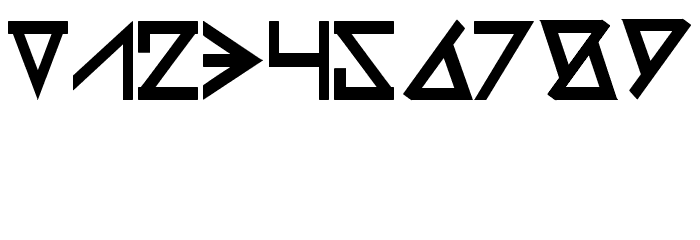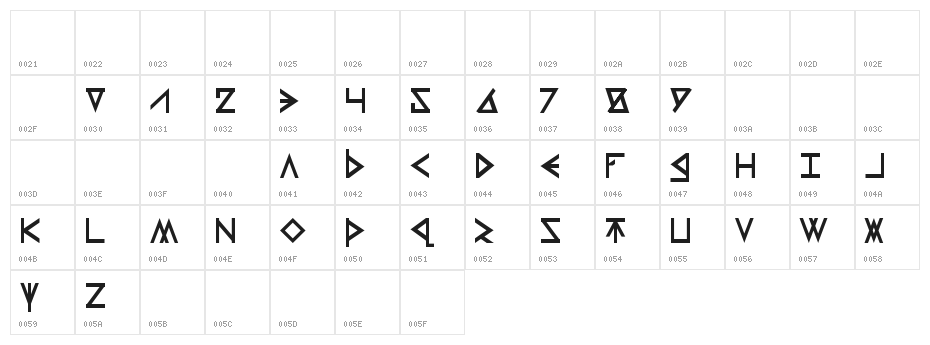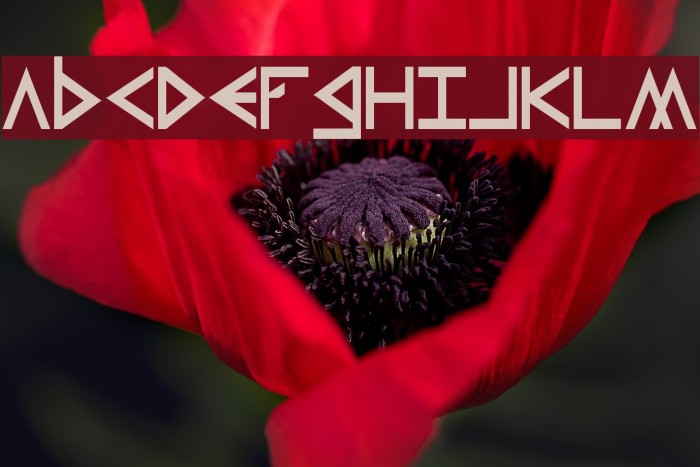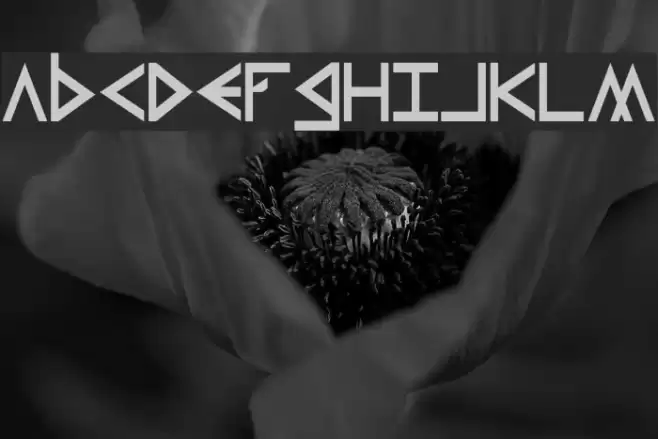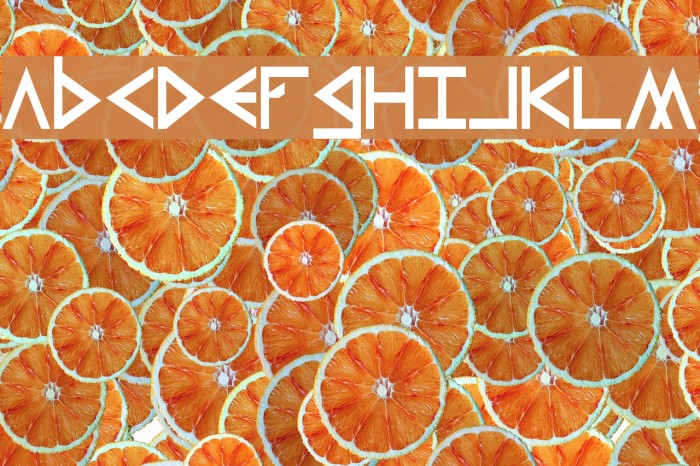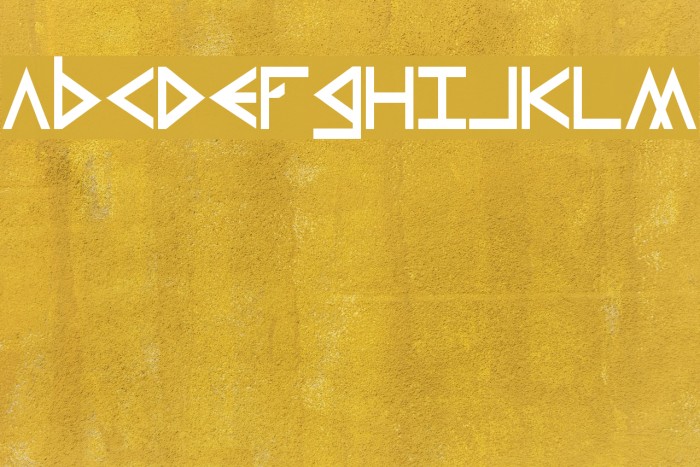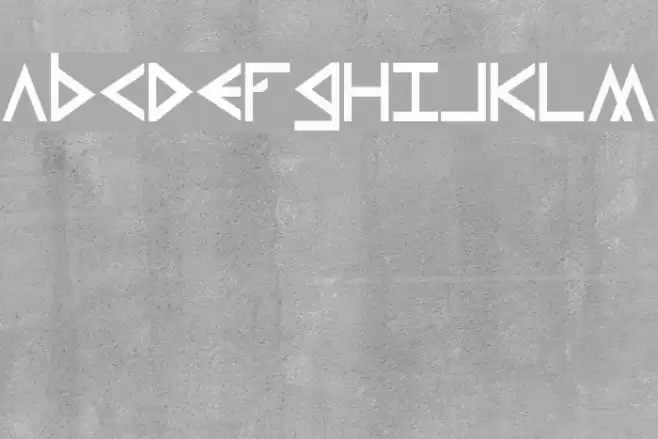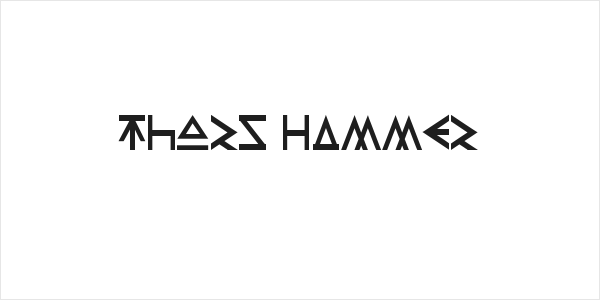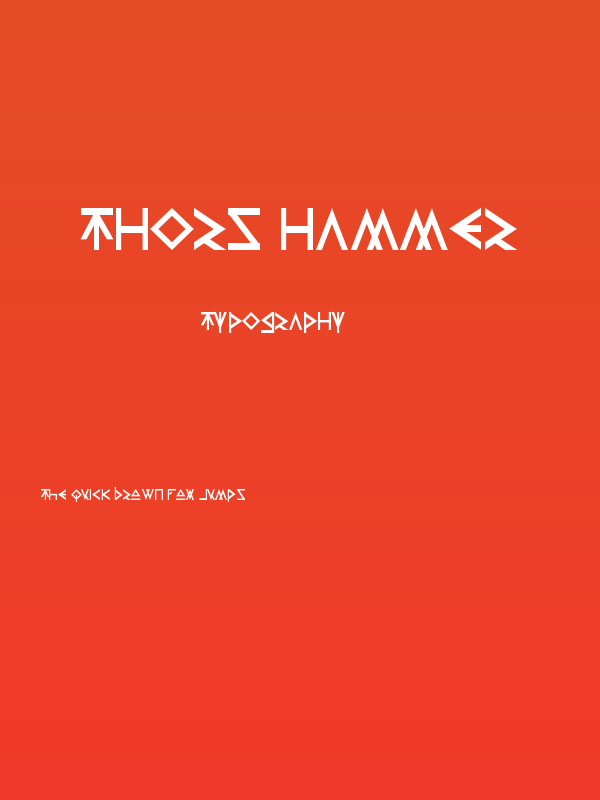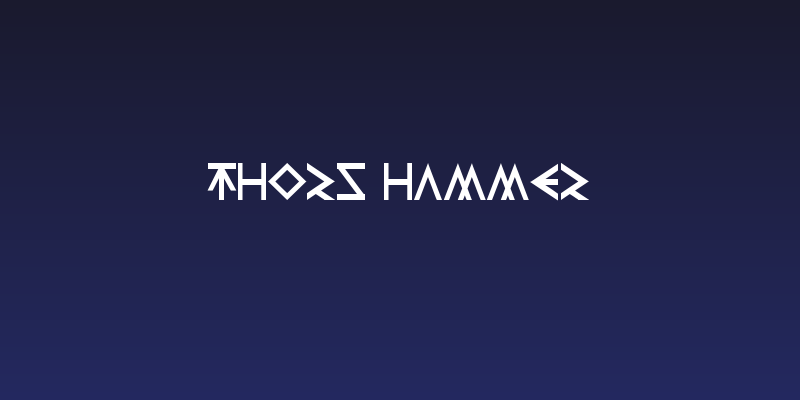
Thors Hammer Font
Thors Hammer Description
This font features a bold and angular design, reminiscent of ancient runes or Norse mythology. Each character is constructed with sharp, geometric lines that create a striking and powerful appearance. The uppercase and lowercase letters maintain a consistent style, with unique variations that add to the font's distinctiveness. Numbers and special characters follow the same angular theme, ensuring a cohesive look across all text. The font's strong visual impact makes it suitable for projects that require a bold and thematic presence.
| Proposed Projects | Ideal for fantasy-themed designs, video game titles, movie posters, and branding for products related to mythology or history. |